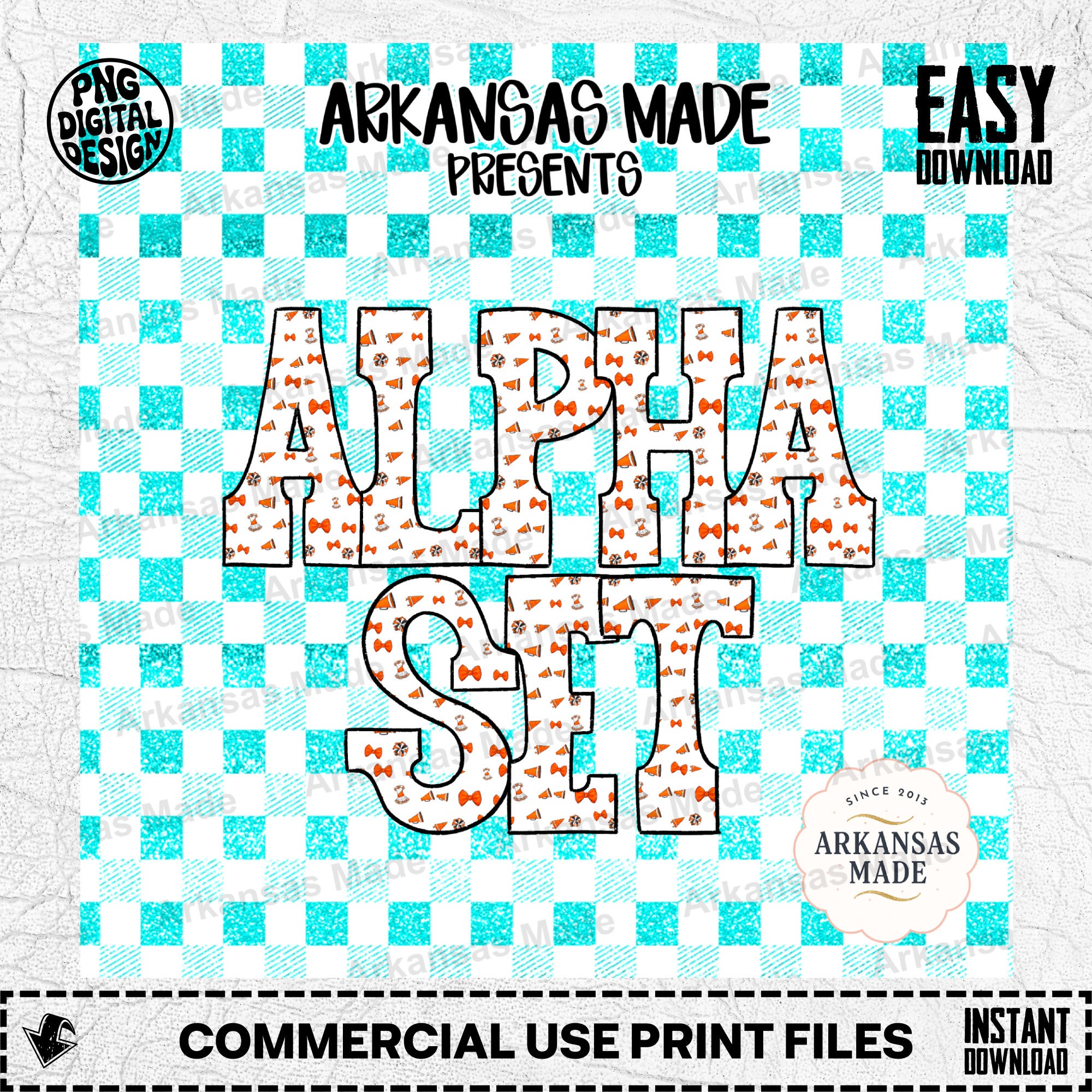
Cheerleading Alphabet PNG Set, Orange White Varsity Letters, Megaphone Bow Pom Pom Font, Team Spirit Alpha PNG Digital Download
Elevate your team spirit with our Cheerleading Alphabet PNG Set! These orange and white varsity letters, filled with cheer bows, megaphones, and outfits, are perfect for custom digital designs. Unleash your creativity with this alpha set, ideal for cheer moms, coaches, and sports enthusiasts designing custom apparel, banners, or gifts. Celebrate game day, pep rallies, or end-of-season events with spirited designs that truly pop!